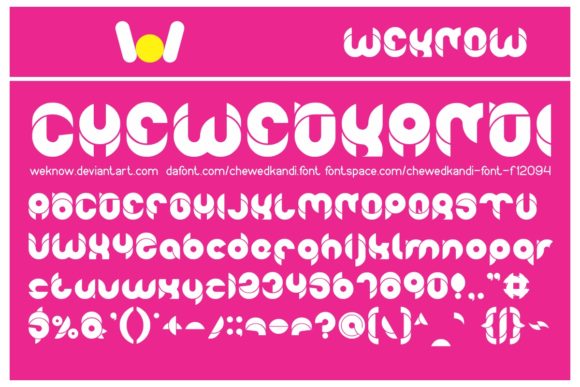
Chewedkandi Font: A Playful Celebration of Abstract Shapes
In the world of typography, fonts play a crucial role in conveying messages, expressing emotions, and creating visual identities. Among the numerous fonts available, Chewedkandi stands out for its unique and eclectic beauty. This display typeface font is designed to celebrate abstract shapes in all their playful and conceptual glory. In this article, we’ll explore the features, benefits, and uses of Chewedkandi, and why it’s an excellent choice for designers and brands looking to make a statement.
The Story Behind Chewedkandi
Chewedkandi is a font that embodies the spirit of creativity and experimentation. Its design is inspired by the abstract and often unconventional shapes that can be found in art, architecture, and nature. The font’s creator aimed to craft a typeface that would be both visually striking and versatile, capable of being used in a wide range of contexts, from headings and titles to logos and branding materials.
Design Characteristics
Chewedkandi is a display typeface font that boasts a distinctive and eye-catching design. Its characters are composed of abstract shapes, which are carefully crafted to create a sense of playfulness and eclecticism. The font features:
- Unique letterforms: Each character in Chewedkandi has a distinct shape, making it perfect for creating visually appealing headings and titles.
- Geometric abstraction: The font’s design is rooted in geometric shapes, which are skillfully combined to create a sense of depth and visual interest.
- High contrast: Chewedkandi’s characters exhibit high contrast, making it ideal for use in large sizes, such as headings, titles, and signage.
The Benefits of Using Chewedkandi
Chewedkandi offers several benefits to designers and brands looking to make a statement with their typography:
- Attention-grabbing: The font’s unique design ensures that it will grab attention and stand out in any context.
- Versatile: Chewedkandi can be used in a wide range of applications, from digital media to print materials.
- Customizable: The font’s abstract shapes can be easily manipulated and customized to suit specific design needs.
- Memorable: Chewedkandi’s distinctive design makes it an excellent choice for branding and logo design, as it can help create a lasting impression on audiences.
Contexts Where Chewedkandi Excels
Chewedkandi’s versatility and unique design make it an excellent choice for a variety of contexts:
- Headings and titles: The font’s large size and high contrast make it perfect for headings and titles, where visual impact is crucial.
- Logos and branding: Chewedkandi’s distinctive design and customizability make it an excellent choice for logos and branding materials.
- Signage and display: The font’s geometric abstraction and high contrast ensure that it will be easily readable and visually appealing in signage and display applications.
- Digital media: Chewedkandi can be used in digital media, such as video games, mobile apps, and websites, to create visually striking and memorable interfaces.
Tips for Using Chewedkandi Effectively
To get the most out of Chewedkandi, consider the following tips:
- Experiment with sizes and colors: Chewedkandi’s design is highly versatile, so don’t be afraid to experiment with different sizes and colors to create visual interest.
- Combine with other fonts: Pair Chewedkandi with other fonts to create visual contrast and add depth to your design.
- Customize and manipulate: Don’t be afraid to customize and manipulate Chewedkandi’s abstract shapes to suit your design needs.
Chewedkandi is a unique and versatile display typeface font that celebrates abstract shapes in all their eclectic beauty. Its playful and conceptual design makes it perfect for a wide range of contexts, from headings and titles to logos and branding materials. With its attention-grabbing design, customizability, and versatility, Chewedkandi is an excellent choice for designers and brands looking to make a statement. By following the tips outlined above, you can unlock the full potential of Chewedkandi and create visually striking and memorable designs.